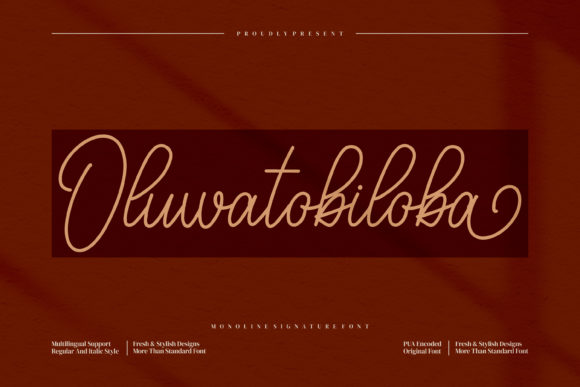
Introducing Oluwatobiloba Font: An Exquisite Handwritten Masterpiece for Your Design Palette
Immerse yourself in the enchanting world of calligraphy with Oluwatobiloba, a captivating script font that embodies the essence of elegance and creativity. Designed with meticulous attention to detail by the talented integritypestudio, this font will transform your designs into works of art.
Oluwatobiloba is a testament to the fusion of beauty and functionality. Its graceful curves and whimsical strokes evoke a sense of playfulness and charm, while maintaining the utmost legibility. This makes it an ideal choice for a wide range of applications, from whimsical chalkboard quotes to captivating teaching materials.
Unleash your creativity and let Oluwatobiloba elevate your designs to new heights. Its authentic and realistic feel will bring a touch of warmth and personality to your projects. Whether you're a seasoned designer or just starting your creative journey, Oluwatobiloba is the perfect font to add a distinctive touch to your work.
Step into the world of Oluwatobiloba and discover the limitless possibilities it holds. Let your imagination soar as you create designs that captivate and inspire. Embrace the charm of handwritten typography and elevate your projects with Oluwatobiloba today.
Additional reasons why you'll adore Oluwatobiloba:
- Its versatility: Oluwatobiloba shines in various contexts, from personal notes to marketing campaigns, adding a touch of elegance wherever it's used.
- Its simplicity: While Oluwatobiloba boasts intricate details, it maintains a clean and uncluttered look, ensuring your designs remain easy to read and visually appealing.